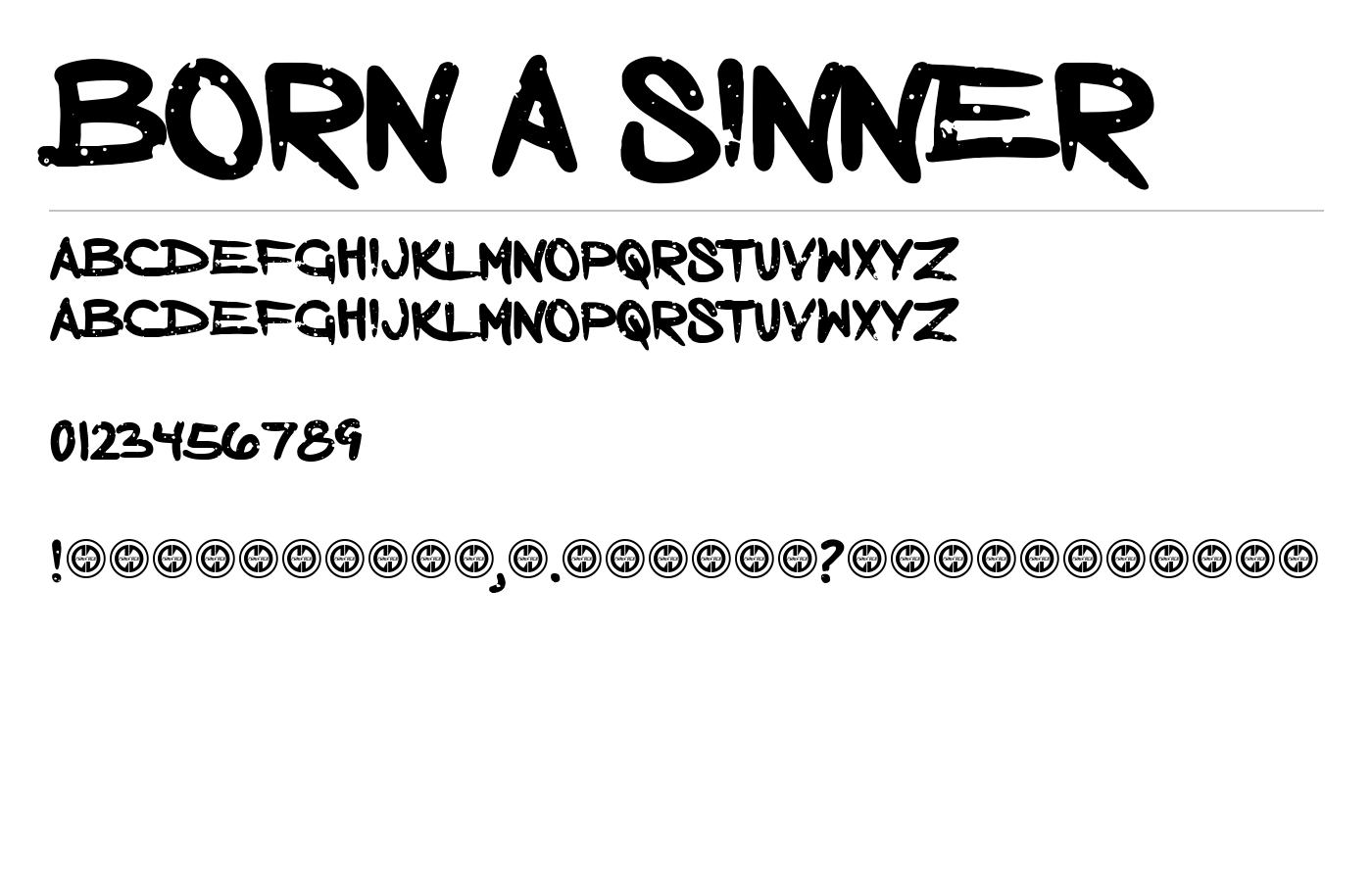
Born a Sinner is a bold, playful sans serif font with a hand-drawn, graffiti-inspired style that features uneven stroke widths and occasional splatter-like details. Its irregular letterforms and casual vibe make it perfect for edgy, creative projects like posters, streetwear branding, or music album covers where a raw, expressive personality is desired. This font stands out with its unique, informal character, adding a youthful and rebellious touch to any design.
Born a Sinner Font
About Born a Sinner Font